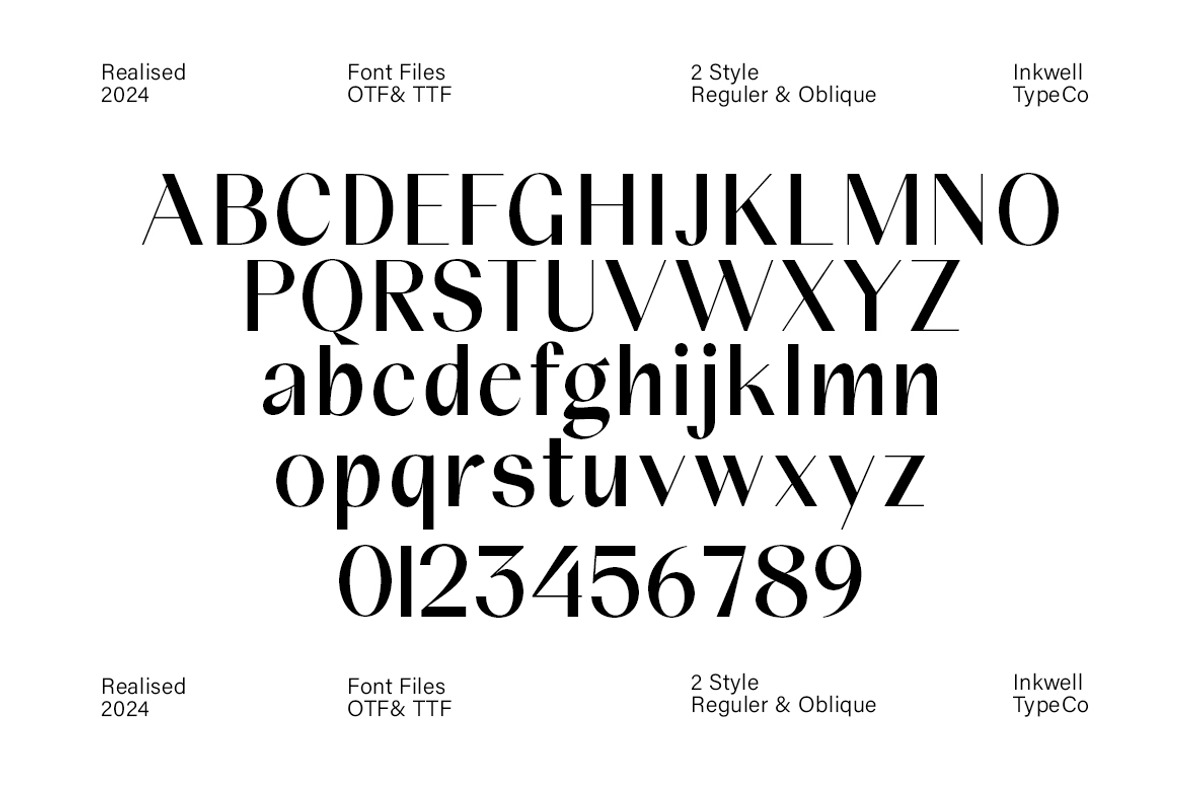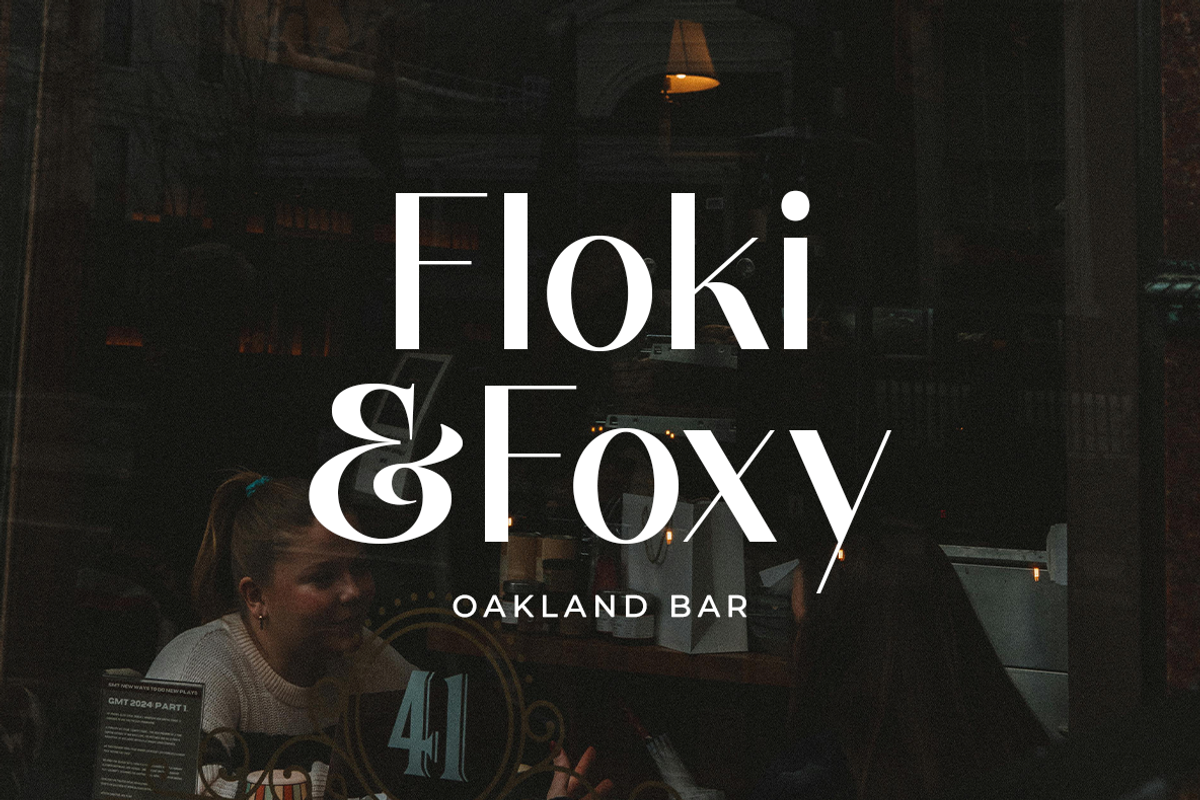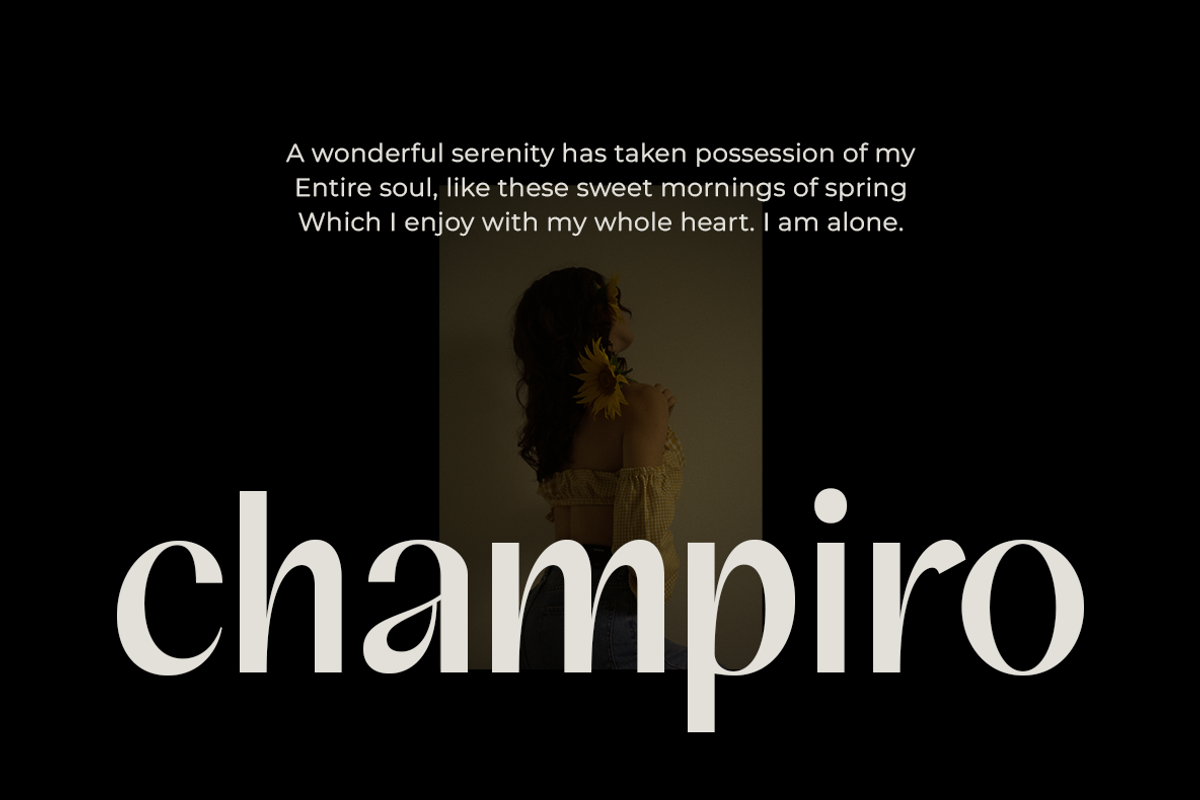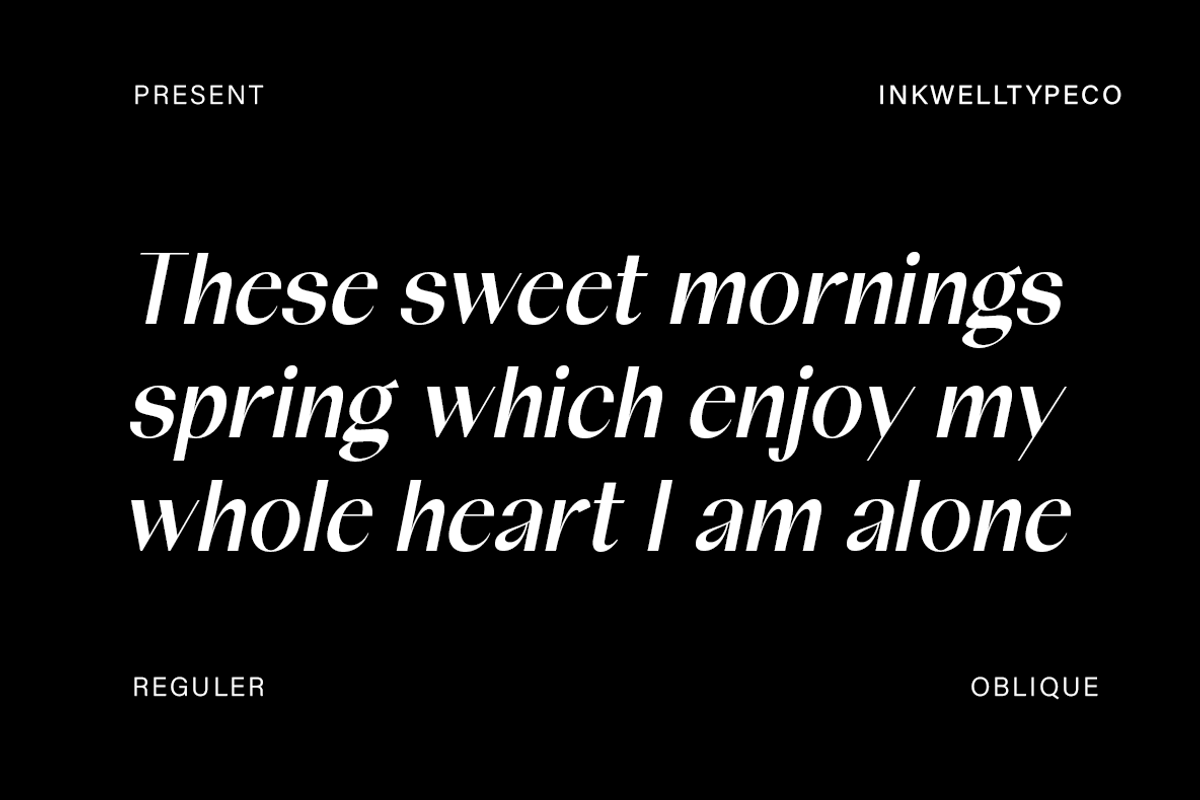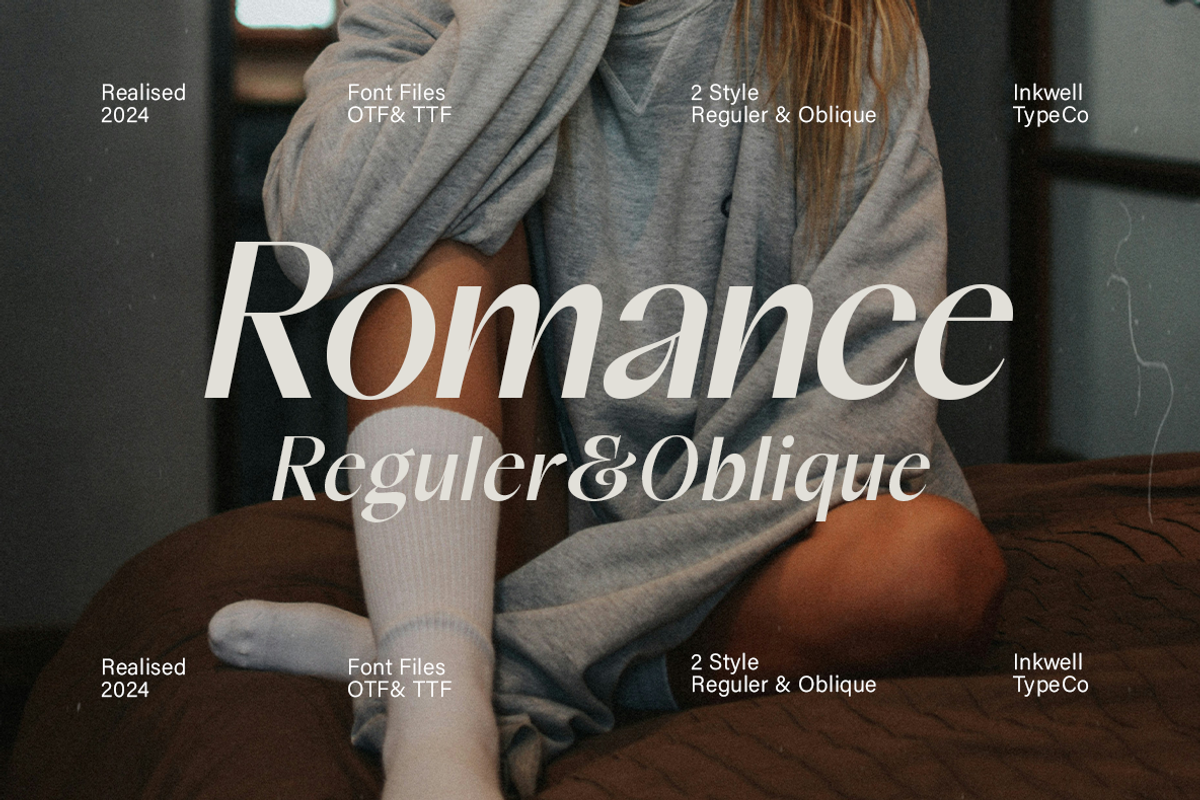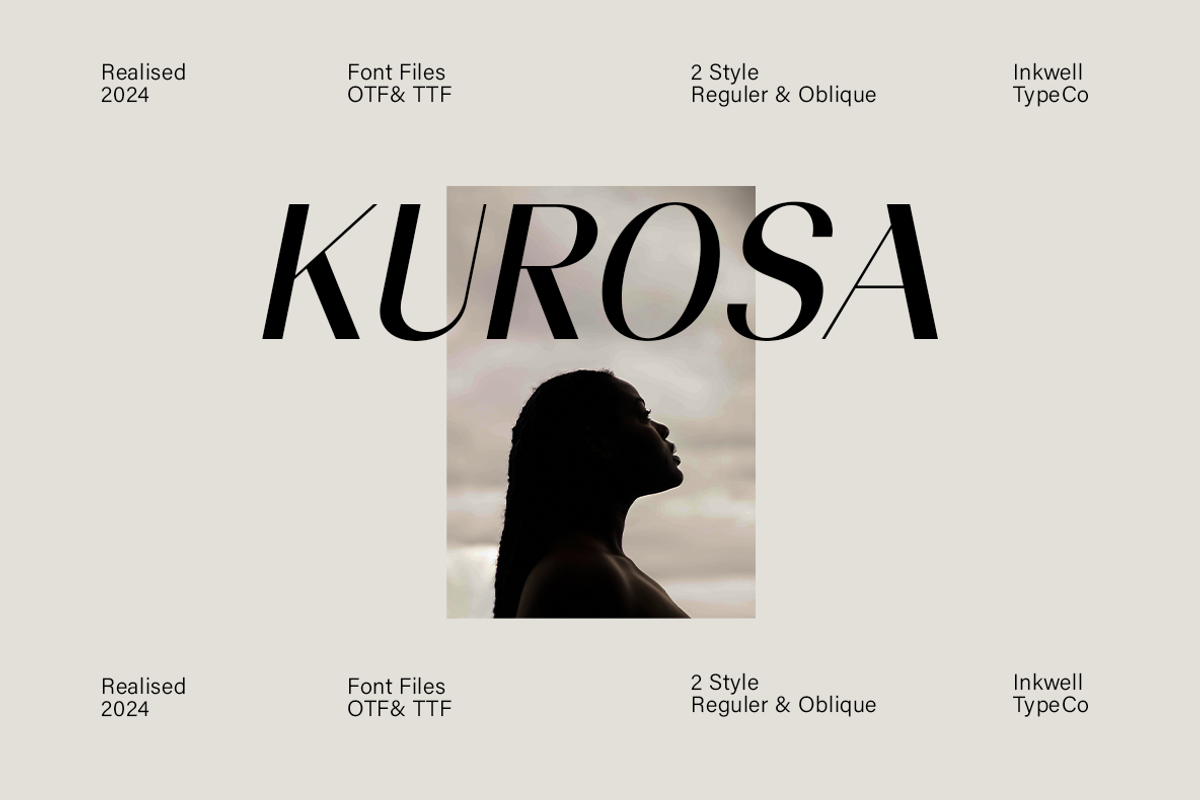
Arcane - 2 style font
Arcane is a distinctive sans serif font designed for impactful visuals. With its clean lines and subtle curved edges, this font exudes a modern and sophisticated feel. Perfect for logos and posters, it combines readability with unique style. Available in multiple weights, Champs provides versatility and supports multiple languages, ensuring your designs stand out with elegance and clarity.
- Arcane Regular
- Arcane Oblique